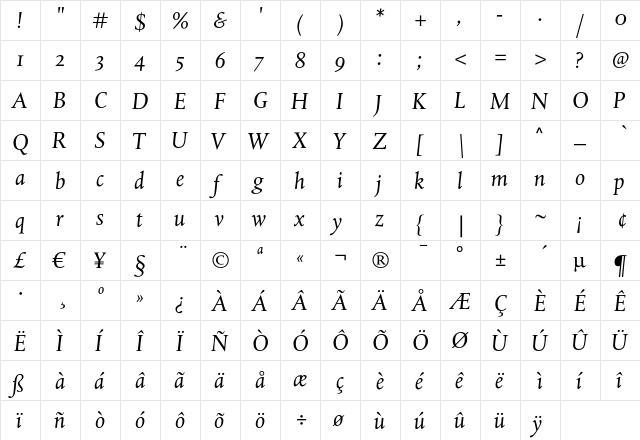
DTLAlbertinaST Italic
Design Context for DTLAlbertinaST Typeface
DTLAlbertinaST offers clean, dependable letterforms without strong stylistic allegiance, making it a practical choice for designers who need flexibility. The slanted form adds forward momentum and visual energy.
Pro Tip: Try DTLAlbertinaST for annotation and caption copy alongside an upright companion — the contrast in angle creates a dynamic but ordered typographic system.